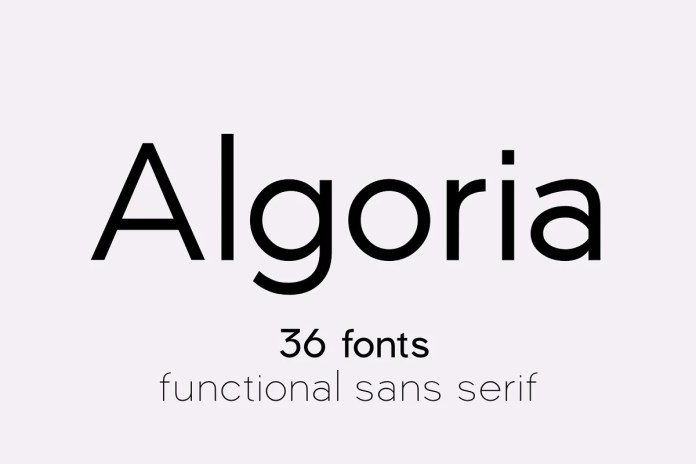
Algoria Font
This font is a sans serif family that comes in 18 weights. The Algoria font has a very bold body, but still has high contrast. The general neutrality of the font patterns is not without elegance, and all the details of the typeface are crafted with mathematical precision and love. Typographic designs are developed for the widest possible range of tasks that any quality corporate font must accomplish.